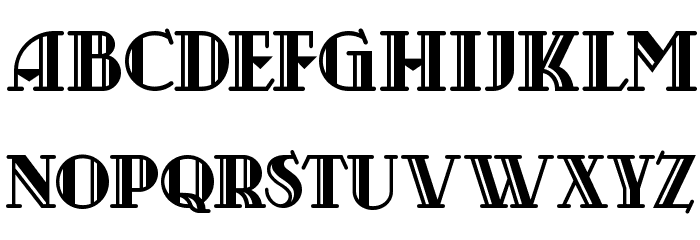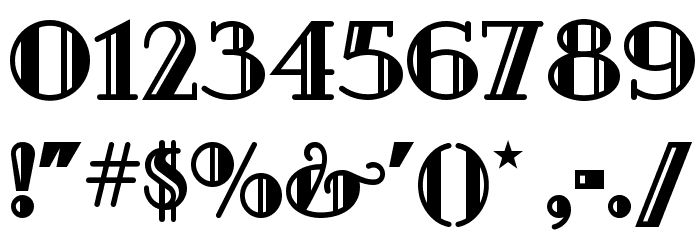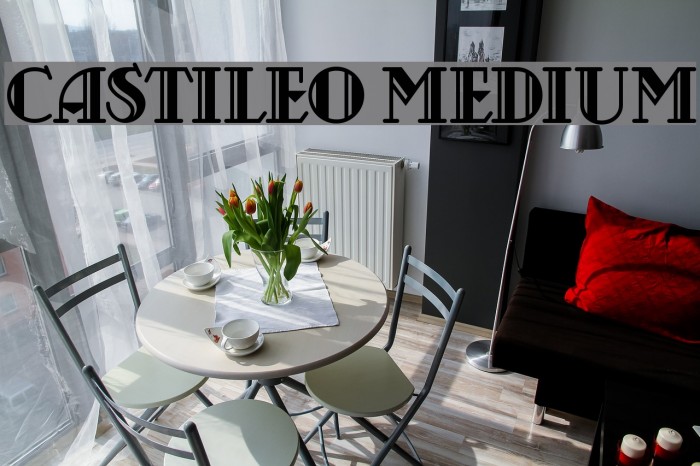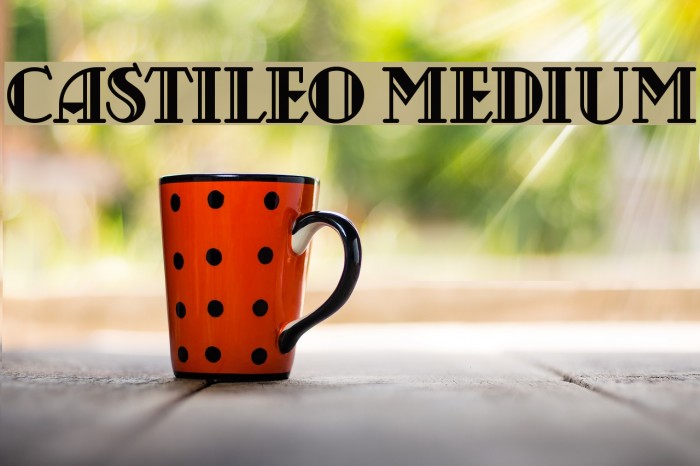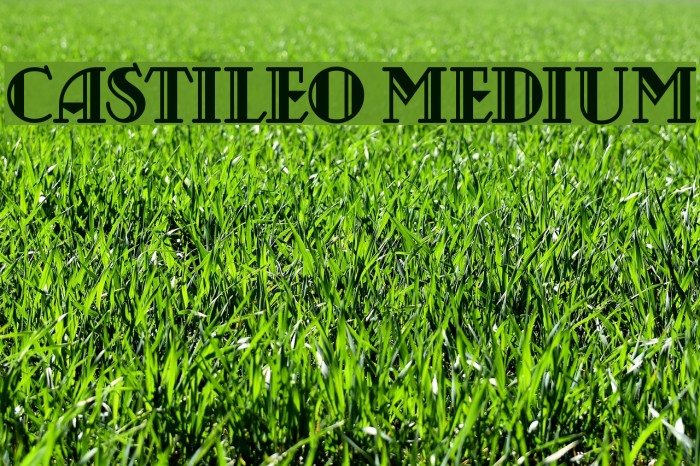
Castileo Medium Font
This font exhibits a bold and striking design, characterized by its unique blend of modern and vintage elements. The uppercase letters feature sharp, angular serifs and a distinct geometric style, creating a sense of elegance and authority. The lowercase letters maintain the same boldness, with a slightly condensed form that enhances readability. Numbers are crafted with a similar geometric flair, ensuring consistency across all characters. Special characters are designed with the same attention to detail, making them suitable for a variety of uses. The overall aesthetic is both decorative and functional, making it ideal for projects that require a strong visual impact.
A bold, geometric serif font with a modern vintage aesthetic.
- Proposed Projects: Ideal for branding, headlines, posters, and editorial design where a strong visual presence is required.
- Overall Style: Modern Vintage